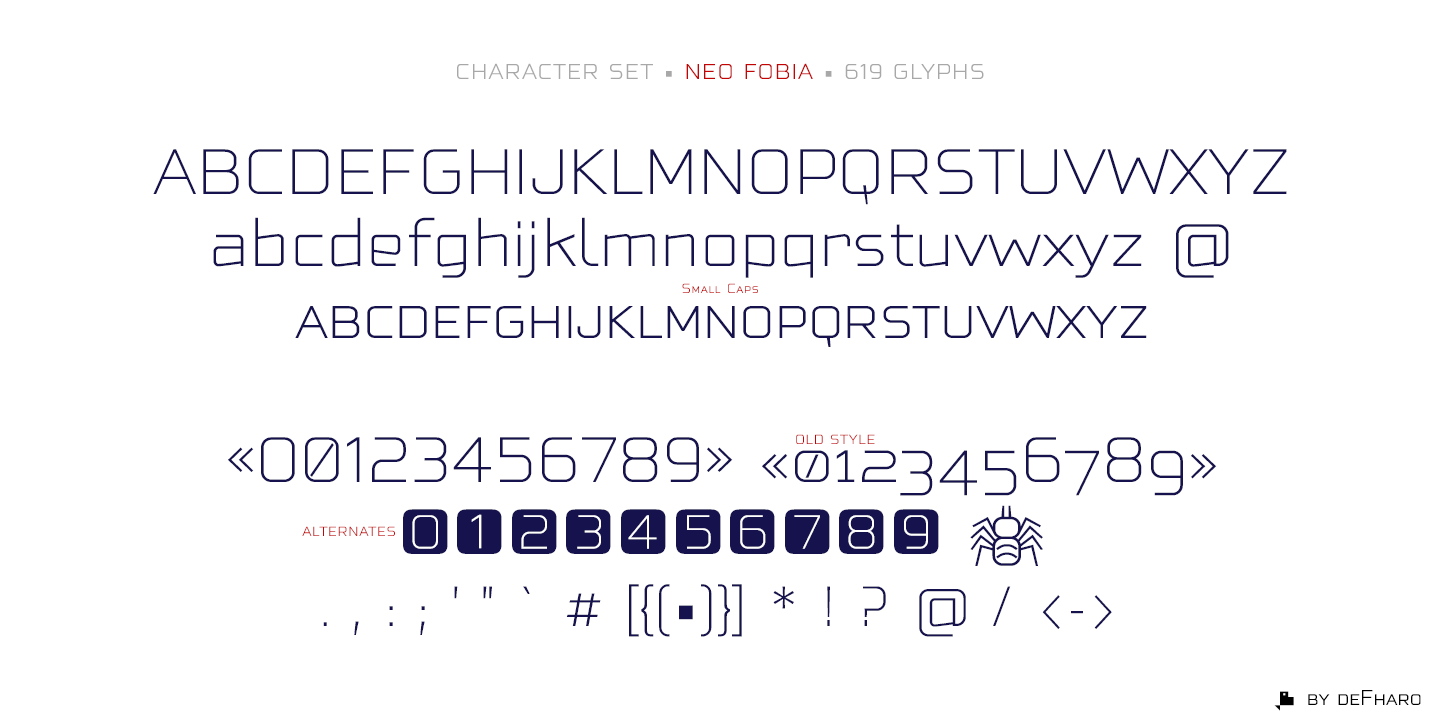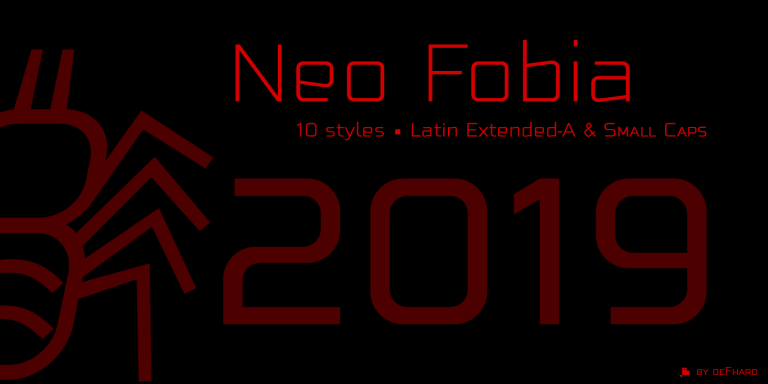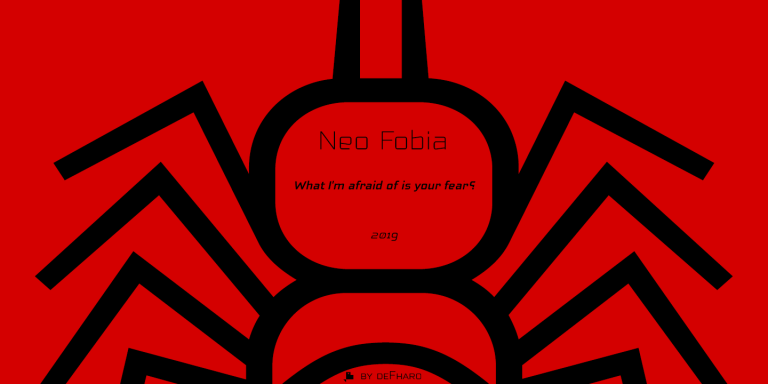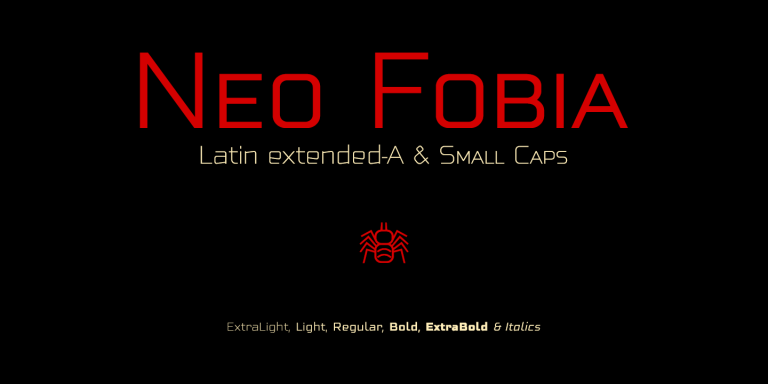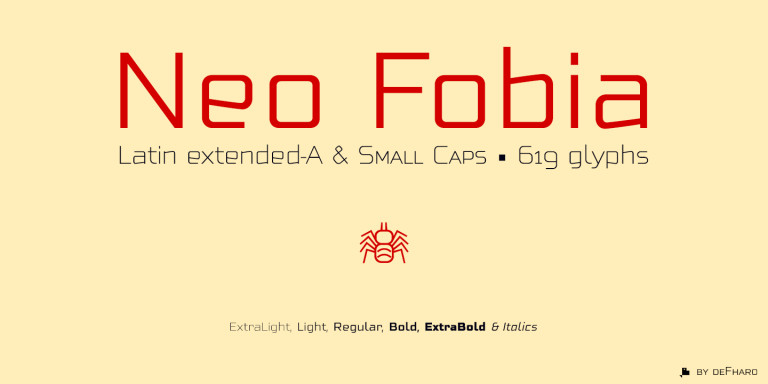
Neo Fobia Typefaces
Neo Fobia is a sans serif typeface that includes letters in small caps, 10 exclusive fonts with square proportion of technological style with a geometrical design of maximum readability with a minimalist aspect. 2019
Neo Fobia is a very versatile typeface for graphic design and advertising, you can use it in poster design, video games, film titles, logos, brand design, etc.